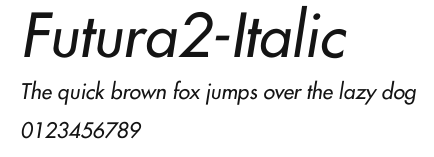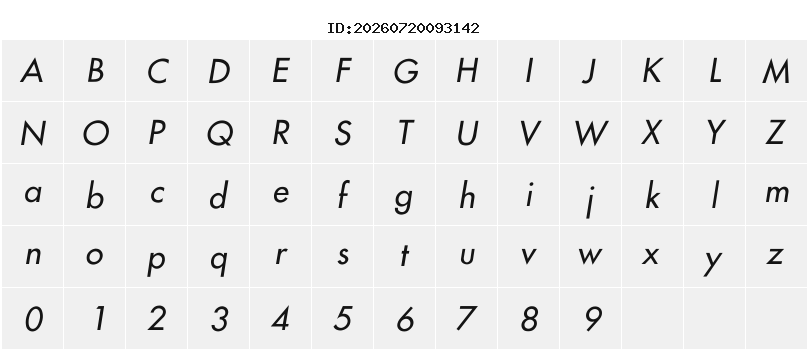
Futura2-Italic.ttf is a modern, elegant sans-serif font designed for ultimate readability and visual harmony. Perfect for branding, headlines, web design, and print materials.